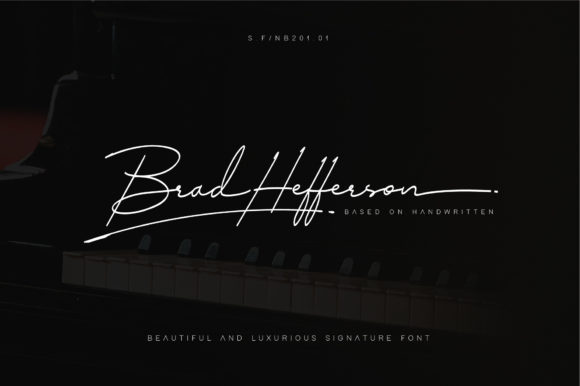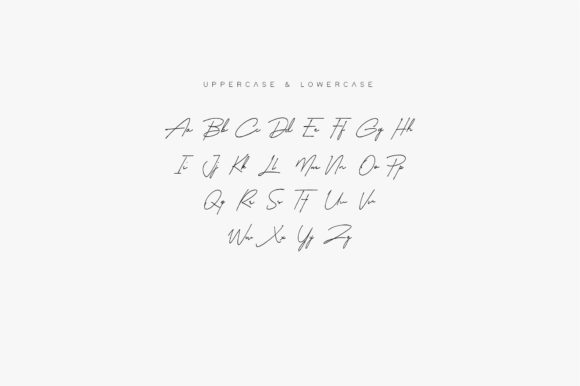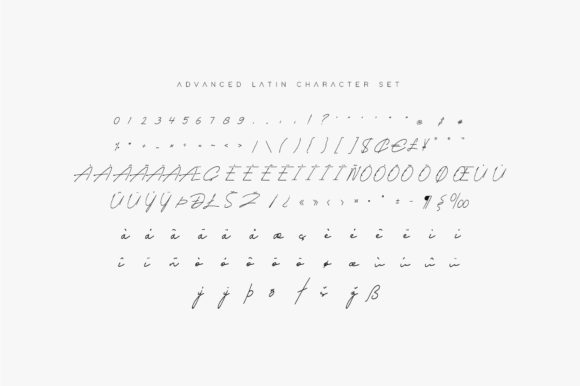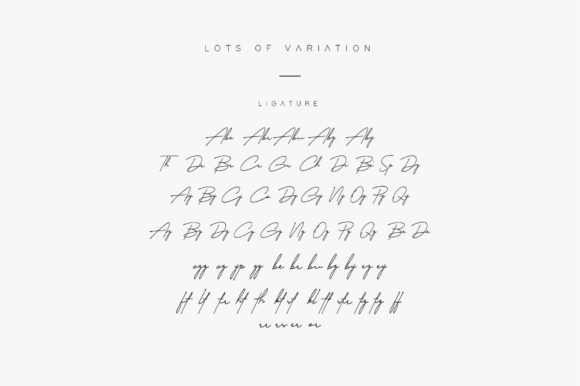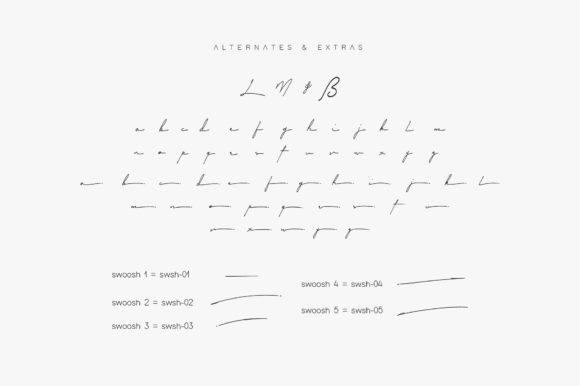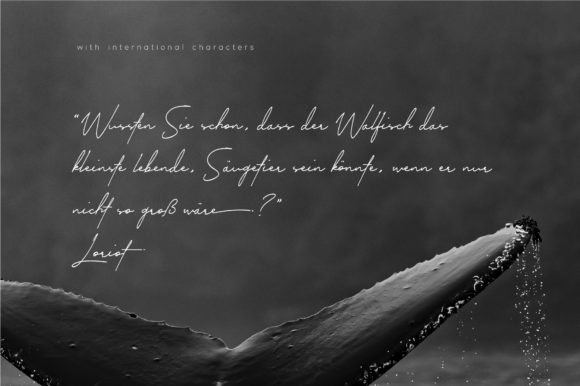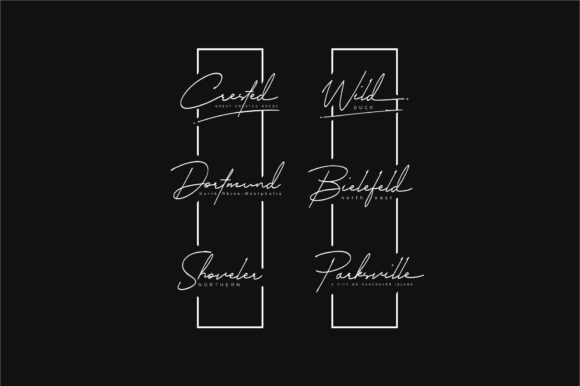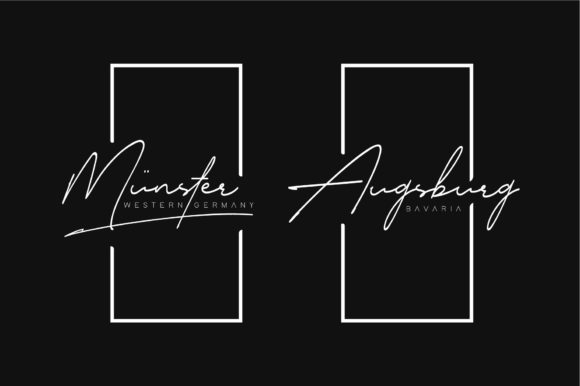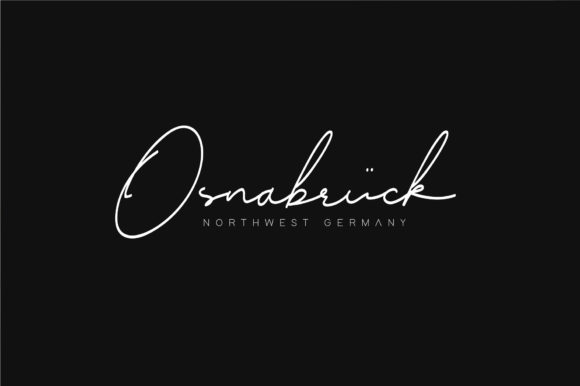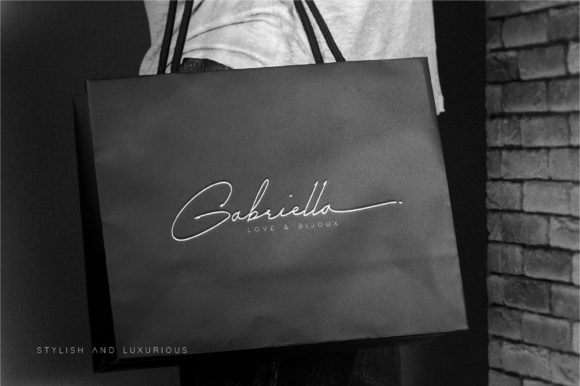
Brad Hefferson Font
About Brad Hefferson Font
Brad Hefferson is a stylish and incredibly elegant script font. It looks stunning on wedding invitations, thank you cards, quotes, greeting cards, logos, business cards and every other design which needs a handwritten touch.